Lux Typo
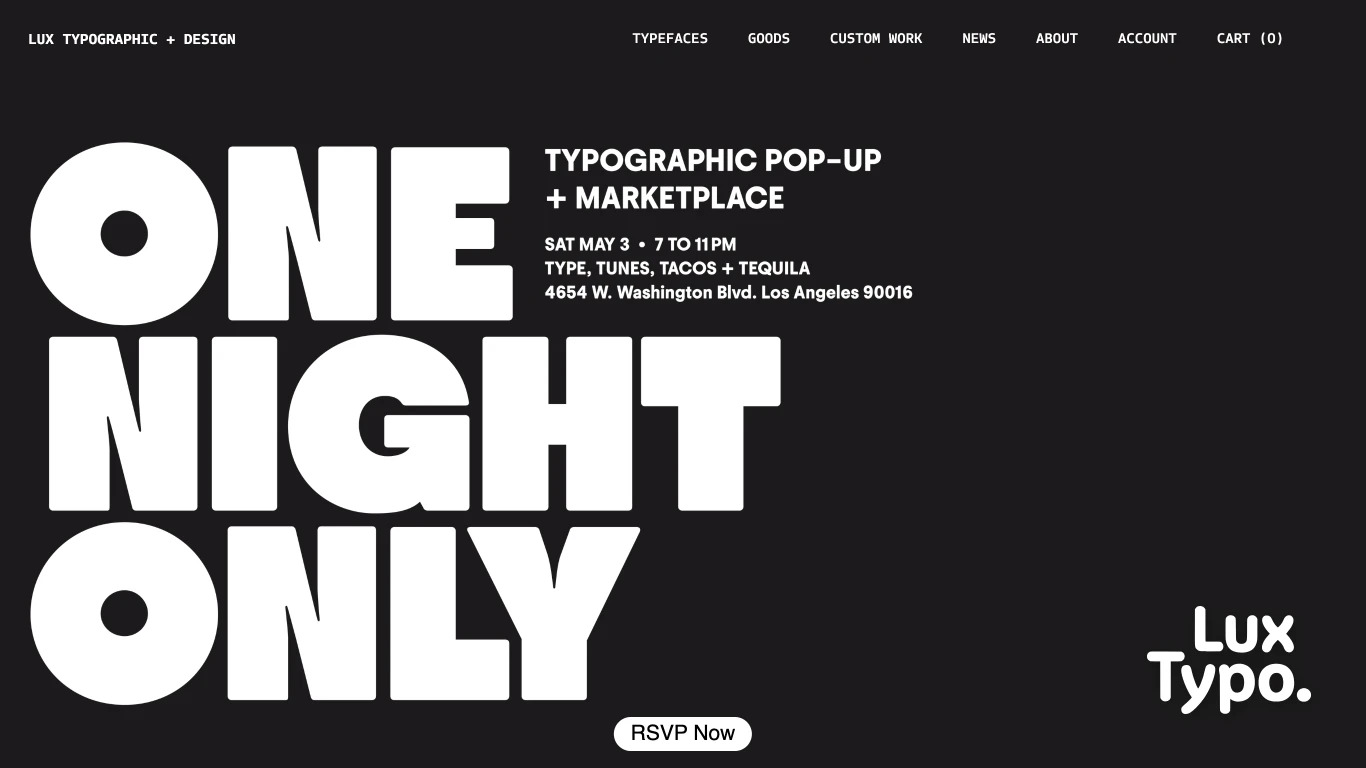
Lux Typographic + Design, founded by Greg Lindy in 2009, is a Los Angeles-based studio specializing in custom typography and typeface design. Notable typefaces include Fabriga (2016) and Cahuenga (2017), inspired by Los Angeles' architecture. The studio has collaborated with high-profile clients like 72andSunny, AVG Technologies, Esquire Magazine, Ogilvy and Johnson & Johnson, among others.